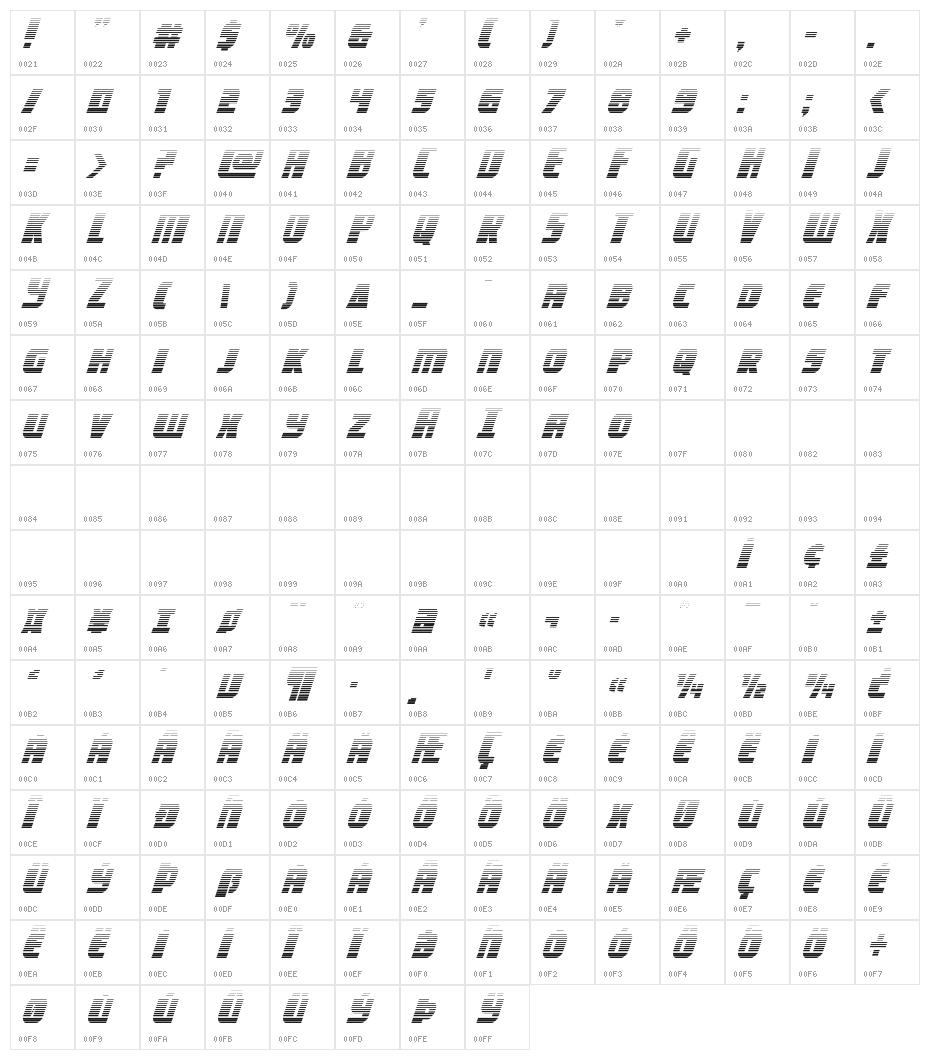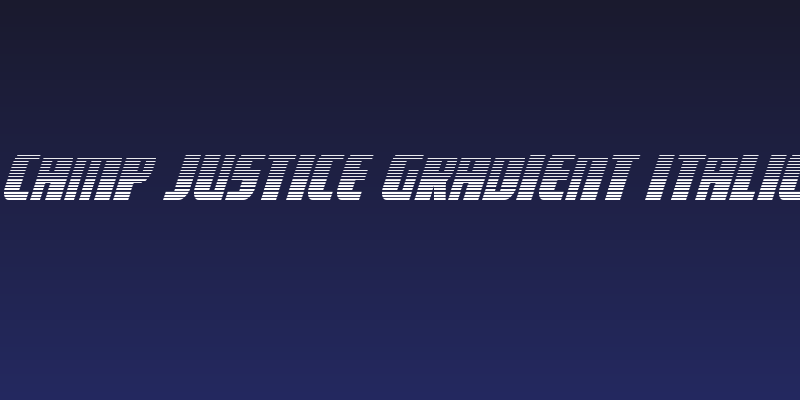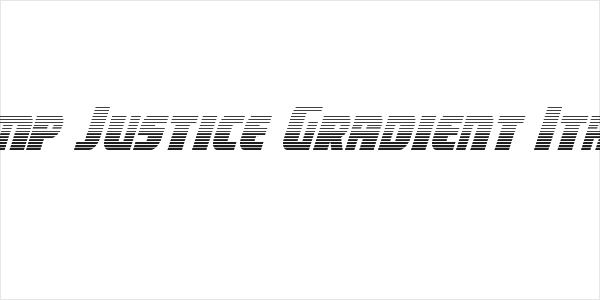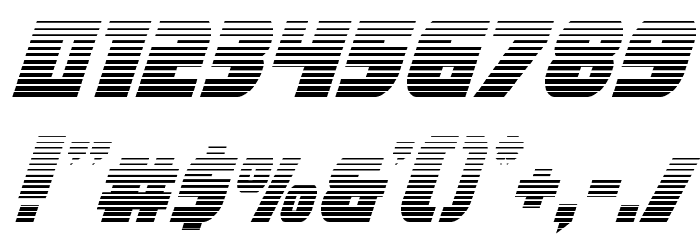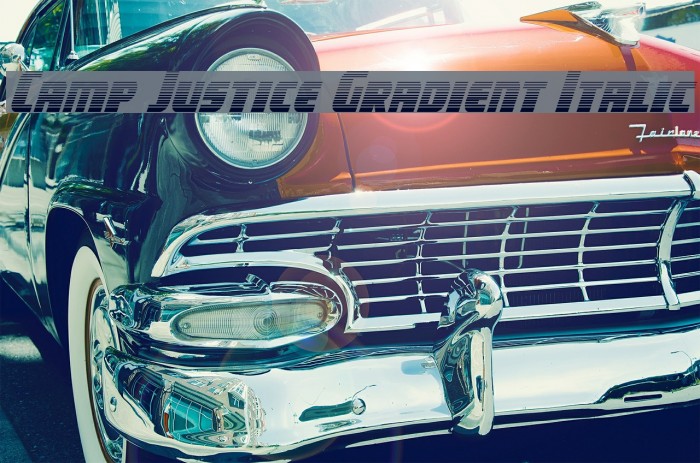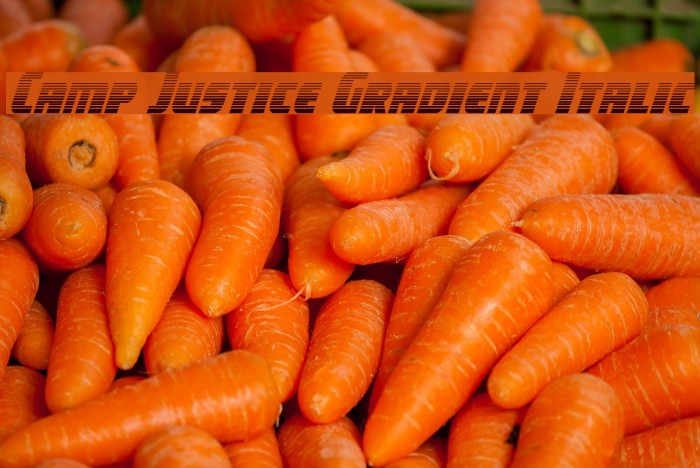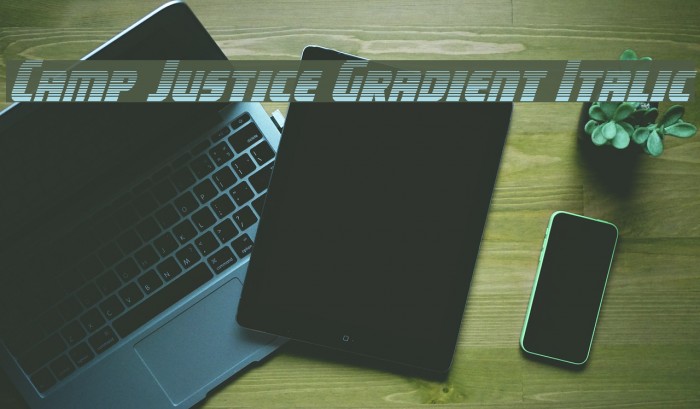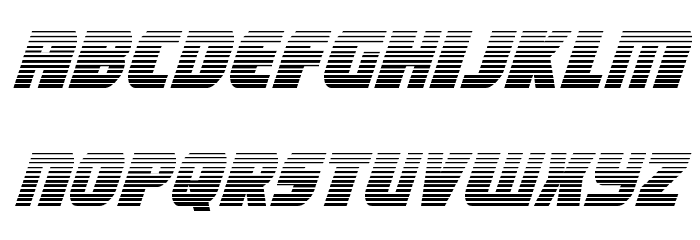
Camp Justice Gradient Italic Font
This font features a bold, italicized style with a distinct gradient effect created by horizontal lines that give it a dynamic and modern appearance. The characters are wide and have a strong presence, making them suitable for attention-grabbing designs. The uppercase and lowercase letters maintain a consistent style, with the gradient lines adding a sense of movement and depth. The numerals and special characters are designed to match the overall aesthetic, ensuring uniformity across all text elements.
| Proposed Projects | Ideal for sports branding, futuristic designs, posters, and digital media where a modern and dynamic look is desired. |